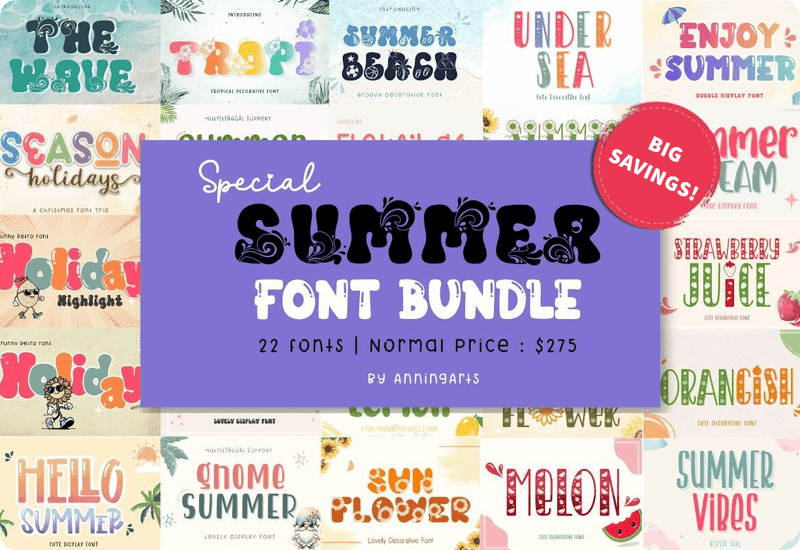
Design with Summer Vibes Using 22 Exclusive Seasonal Fonts
Bring a splash of sunshine into your creative projects with the Special Summer Font Bundle by AnningArts. This professionally designed collection includes 22 vibrant and playful fonts tailored for all your warm-weather creations—from tropical invitations to colorful apparel designs. Featuring a range of retro, decorative, and tropical themes, this bundle is ideal for t-shirts, mugs, party flyers, stickers, planner pages, branding elements, and more. Now available as a limited-time giveaway, you get a $275 value for absolutely free.
What’s Inside the Special Summer Font Bundle?
Each font in this curated set has been thoughtfully crafted to reflect the spirit of summer. From refreshing fruit-inspired styles to beach and vacation-themed scripts, these fonts bring character and creativity to every design. Here’s a closer look at what you’ll find:
- Melon Decorative Font – Juicy and fun, great for playful headlines and summer menus.
- Strawberry Juice Font – Sweet and cheerful for kids’ projects and seasonal merch.
- Orangish Font – A fruity flair perfect for lemonade stand signs and tropical tags.
- The Wave Font – Captures the motion of the sea; great for surf shops or swimwear.
- Under Sea Font – Ocean-inspired curves, ideal for underwater or marine themes.
- Tropi Decorative Font – Palm-tree paradise style, great for vacation branding.
- Holiday Display Font – Celebratory, bold, and ideal for party decor.
- Season Holidays Trio Font – A versatile trio perfect for any summer or spring campaign.
- Spring Flower Font – Adds a floral charm to garden event signage and invites.
- Holiday Highlight Font – Catchy and modern for digital summer promos.
- Summer Beach Font – Classic sun-and-sand feel for all beach-themed crafts.
- Summer Rainbow Font – Bright, colorful, and joyful.
- Enjoy Summer Font – Handwritten warmth and friendliness.
- Flamingo Script Font – Elegant yet tropical for boutique brands or wedding items.
- Summer Vibes Font – Chill and cheerful, works well on t-shirts and bags.
- Gnome Summer Font – Whimsical characters, great for kids’ content.
- Sugar Lemon Font – Tart and punchy, perfect for snack labels or party invites.
- Sunflower Font – Radiates energy and optimism.
- Retro Summer Font – Classic 70s vibe, fits perfectly on throwback apparel.
- Summer Flower Font – For nature-themed logos or decor.
- Hello Summer Font – Bright greeting style perfect for headers and storefronts.
- Summer Dream Font – Ideal for dreamy seasonal marketing campaigns.